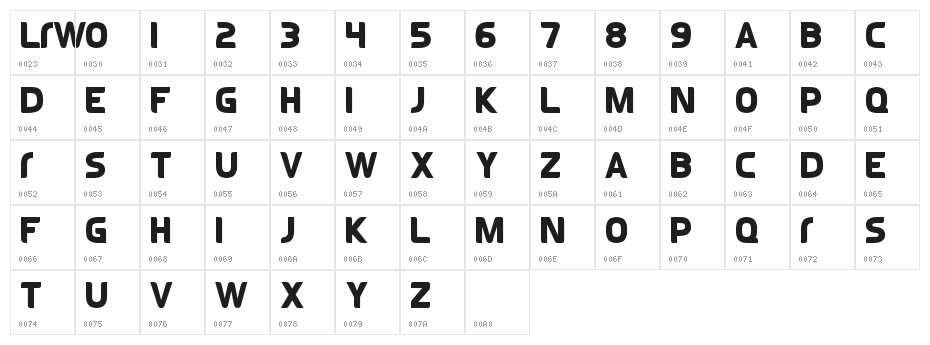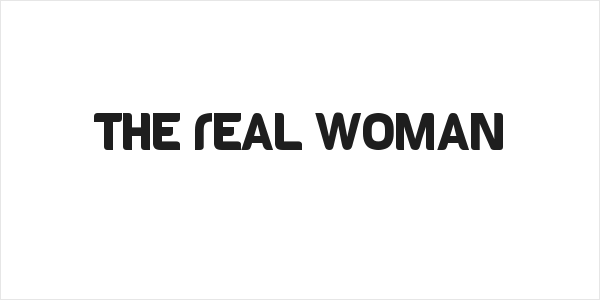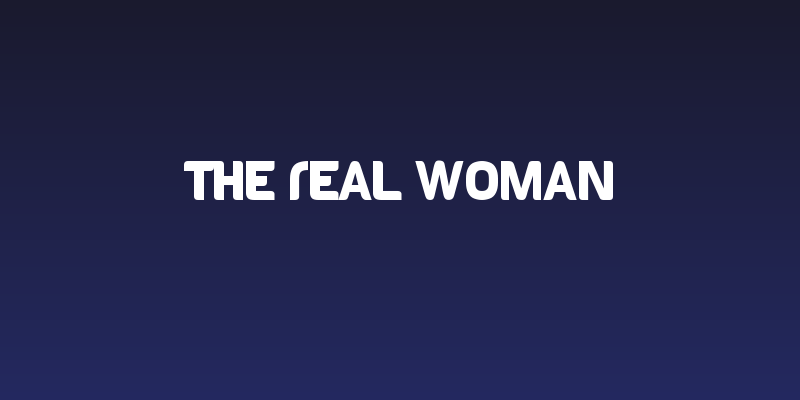
The Real Woman Font
The Real Woman Description
This font features a bold and rounded design, characterized by its smooth curves and uniform stroke thickness. The letters are wide and have a modern, friendly appearance, making them highly legible. The numbers follow the same style, ensuring consistency throughout. The overall look is clean and contemporary, suitable for a variety of applications where a strong yet approachable typeface is desired.
| Proposed Projects | Ideal for branding, advertising, headlines, and signage where a bold and approachable look is needed. |